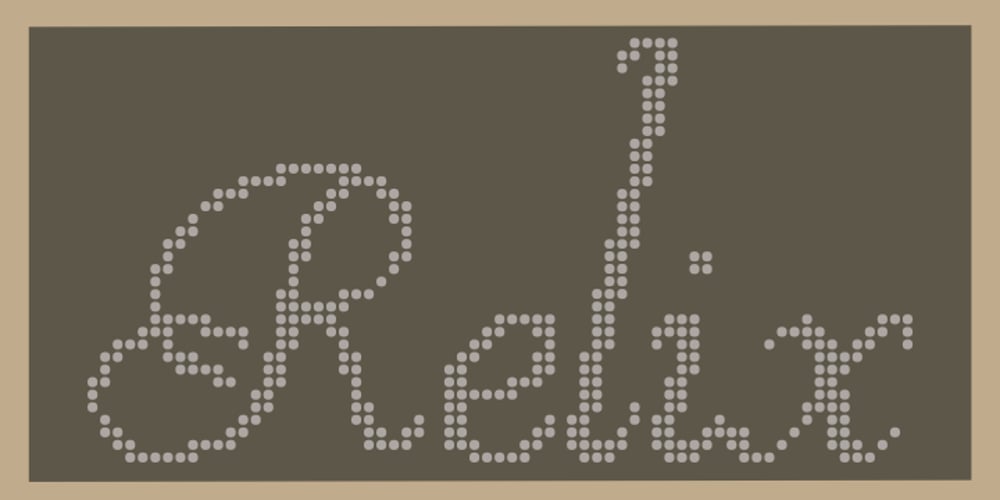
Relix Font Family was designed by published by Intellecta Design. Relix contains 1 styles and family package options. Relix, emulating the old videogame’s screen fonts, that’s a good font to non-formam small texts, names, logotypes, titles, headers, topics etc., developed from the original Reliant’s Intellecta typeface. Big sizes of this font can be used for texts on posters, t-shirts and other surfaces.